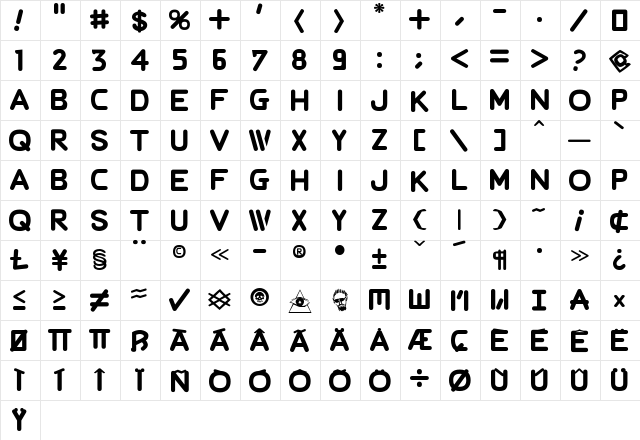
Autocrat Black Regular
| Foundry | CONIGLIO USA |
Design Context for Autocrat Black Typeface
Autocrat Black takes a measured approach to typography — its balanced proportions and neutral character make it a reliable workhorse for both digital and print work.
Pro Tip: Use Autocrat Black in both headline and body roles to test its range before committing to a single application.